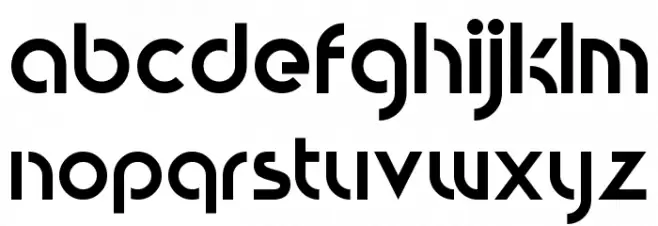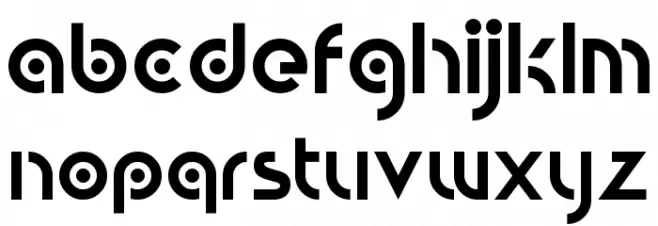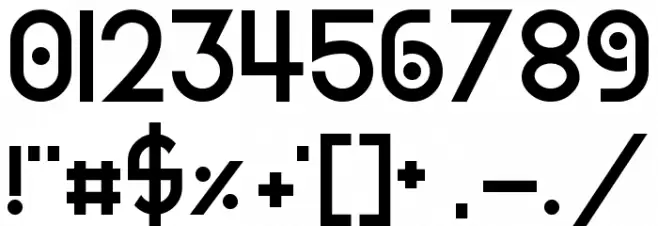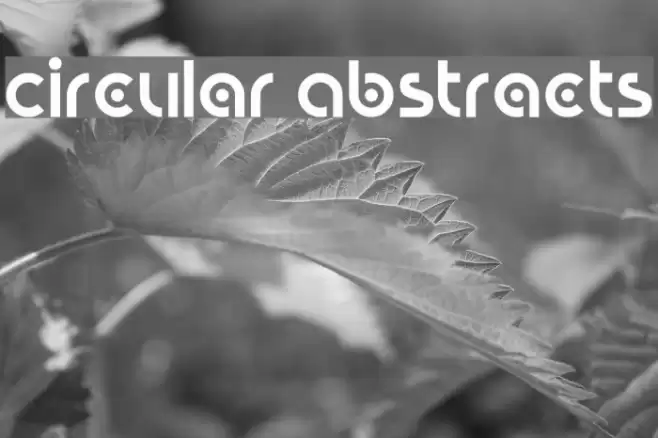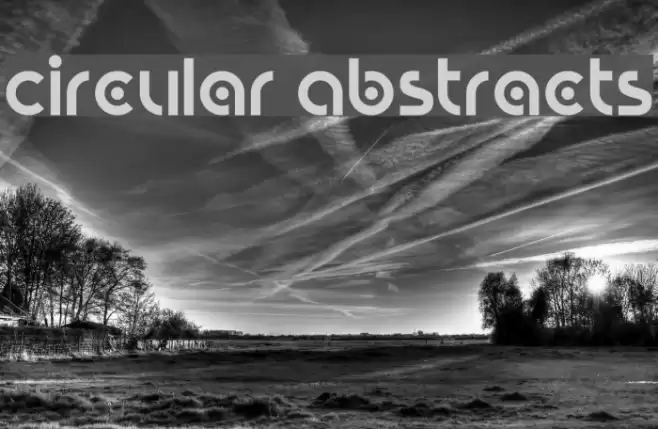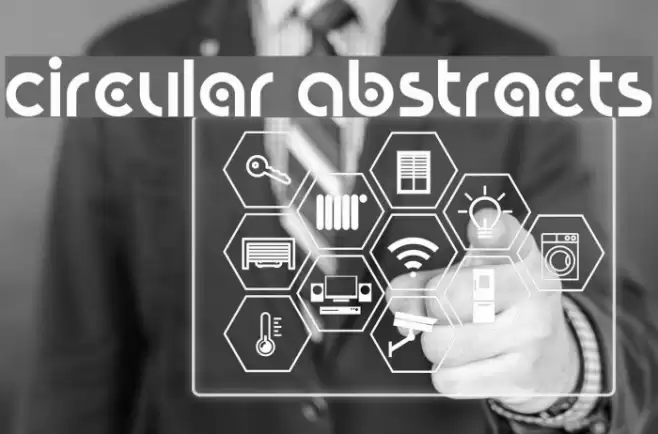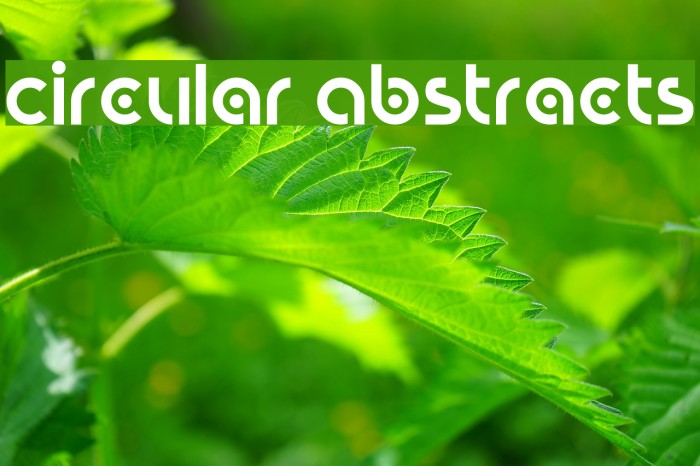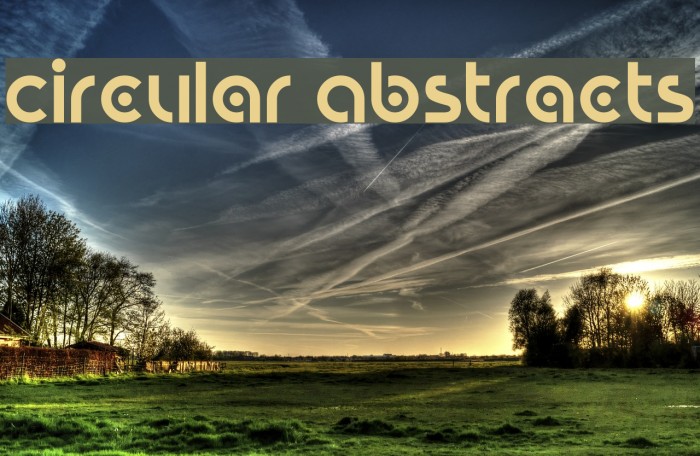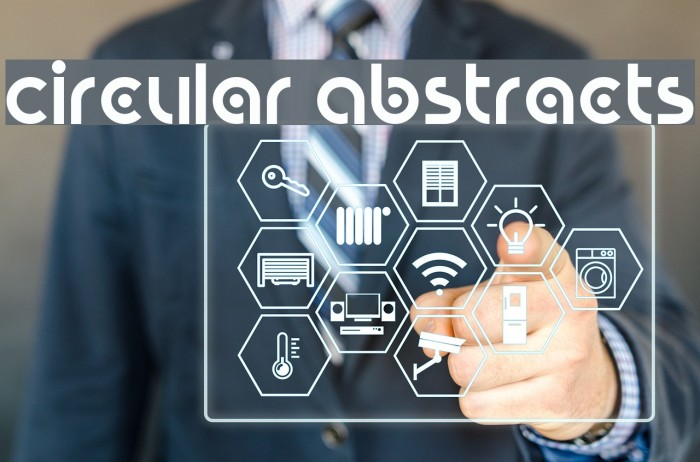
Circular Abstracts
This font features a modern, geometric design with a strong emphasis on circular forms and clean lines. Each character is crafted with precision, showcasing a uniform stroke width that contributes to its bold and striking appearance. The rounded edges and consistent curves give it a friendly and approachable feel, while maintaining a sense of professionalism. The numerals and special characters are designed to complement the alphabet, ensuring a cohesive look across all elements. This font is versatile, suitable for a range of applications from digital interfaces to print media.
A modern, geometric font with circular forms and clean lines.
- Proposed Projects: Ideal for branding, digital interfaces, advertising, and editorial design.
- Use Case: Headlines, Logos, Digital Interfaces